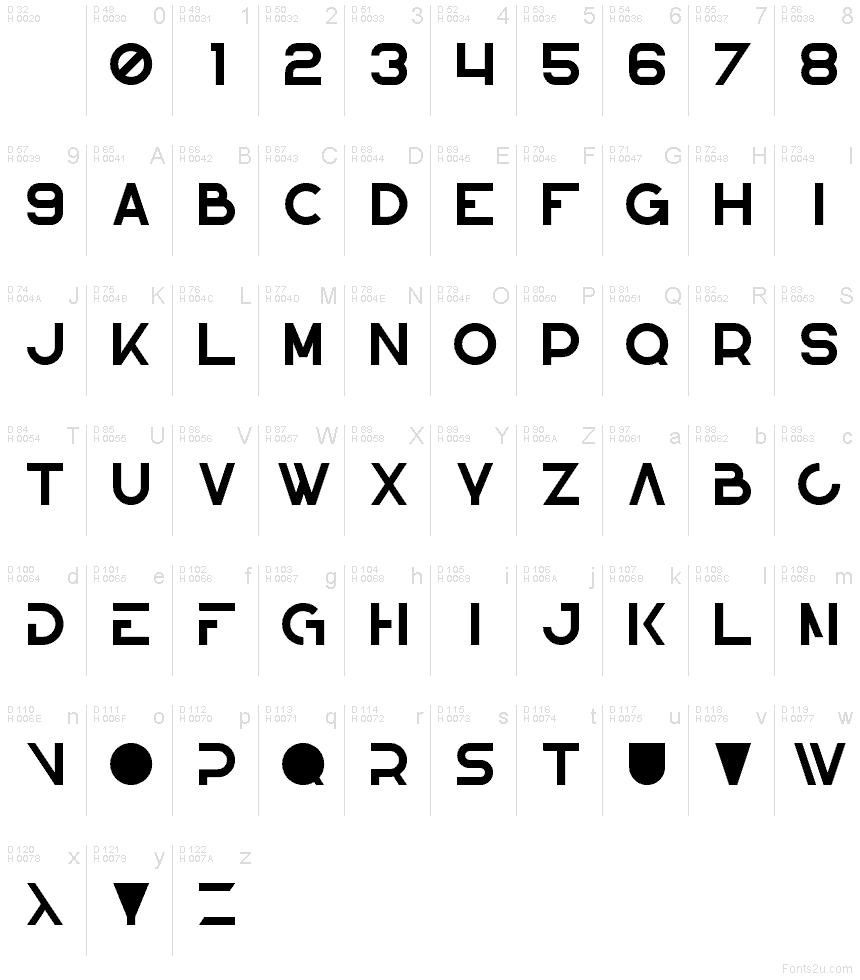
Knowhere
Knowhere font by VPcreativeshop is an expanded techno display free font with a futuristic vibe. Its unique letters are characterized by bold geometric shapes, sharp edges, straight lines, and an overlap of interesting clean elements. It is a modern typeface constructed in a minimalist manner to create readability within its creative forms.